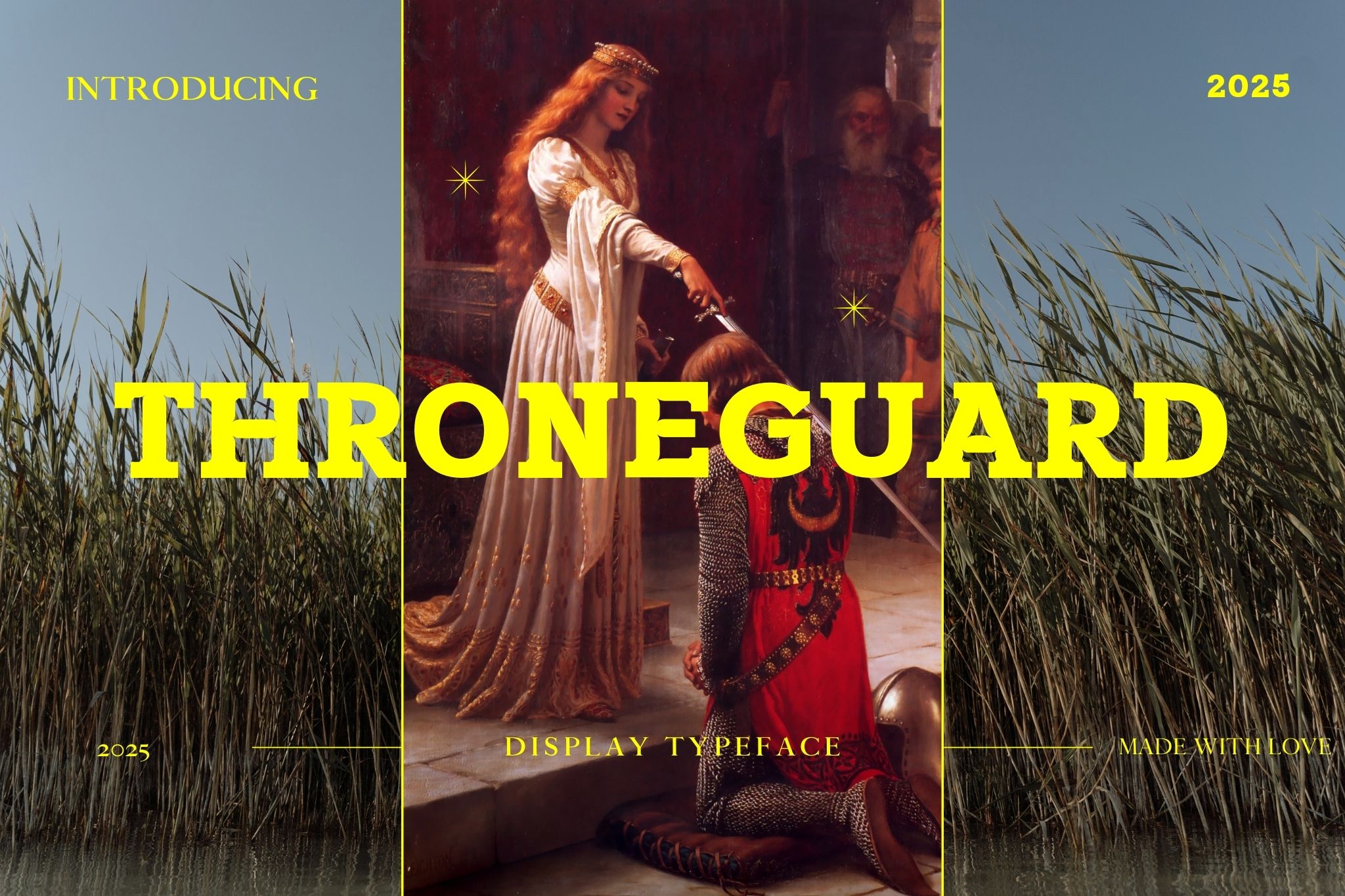
- THRONEGUARD Display font
A powerful display typeface built for regal authority and medieval grandeur. THRONEGUARD Display font combines bold slab serif construction with contemporary readability, creating a font that’s perfect for designers, publishers, game developers, and creatives looking to add commanding presence to their projects.
Features:
- Bold Royal Aesthetic: Authoritative slab serif construction that captures medieval grandeur with modern flair
- Multiple Character Sets: Complete with standard glyphs, numerals, functional characters, and multilingual support
- Versatile Applications: Perfect for book covers, game titles, branding, editorial headlines, and fantasy-themed designs
- Commanding Personality: Strong, distinctive letterforms that demand attention
- Meticulous Construction: Balanced proportions that maintain legibility without compromising on character
What’s Included:
- Standard alphanumeric glyphs (A-Z, a-z, 0-9)
- Numeric & functional characters for comprehensive design flexibility
- Multilingual support with extensive diacritic marks
- Punctuation and special characters
THRONEGUARD Display Typeface doesn’t just suggest authority—it commands it with careful attention to typographic detail. Each character is crafted to maintain readability while delivering the striking visual impact that defines powerful display typography.
Whether you’re designing fantasy book covers, creating game titles, developing brand identities, or seeking attention-grabbing headlines, THRONEGUARD Display Typeface delivers royal results with distinctive character.
Crown your designs with the mighty THRONEGUARD Display Typeface!